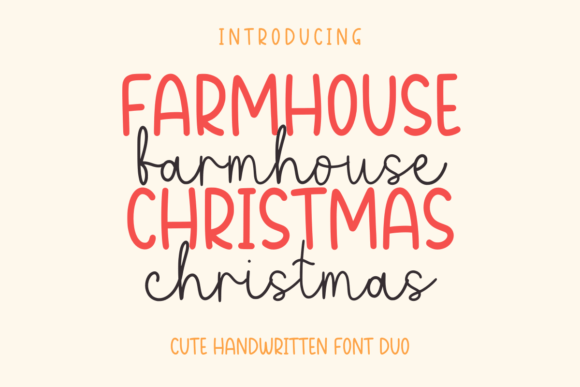
Introducing Farmhouse Christmas Font - the perfect script font duo designed by Sakti Avellin to add a touch of cuteness and charm to your projects. This incredible collection offers a wide range of font styles for branding, making it an absolute must-have for every creative individual!
With its handwritten script and monoline options, Farmhouse Christmas Font is incredibly versatile and can be used for various design purposes. Whether you're looking to create stunning quotes, design trendy t-shirts, craft eye-catching tote bags, or even personalize delightful greeting cards and mugs, this font duo has got you covered.
Unleash your creativity and infuse your designs with the fun and playful vibe of Farmhouse Christmas Font. Its unique and captivating style will instantly grab attention and leave a lasting impression on your audience. Let your words come to life with the organic flow of this script font, adding a personal touch that sets you apart from the crowd.
Crafted with utmost care, Farmhouse Christmas Font is not just about aesthetics, but also about delivering a smooth and seamless user experience. Its flawless readability ensures that your message is conveyed effortlessly, leaving your audience captivated and engaged.
By incorporating Farmhouse Christmas Font into your projects, you are not only enhancing their visual appeal but also evoking emotions and creating a connection with your audience. This font duo adds a sense of warmth, nostalgia, and joy, making it the perfect choice for holiday-themed designs, cozy branding, and any project that calls for a touch of whimsy.